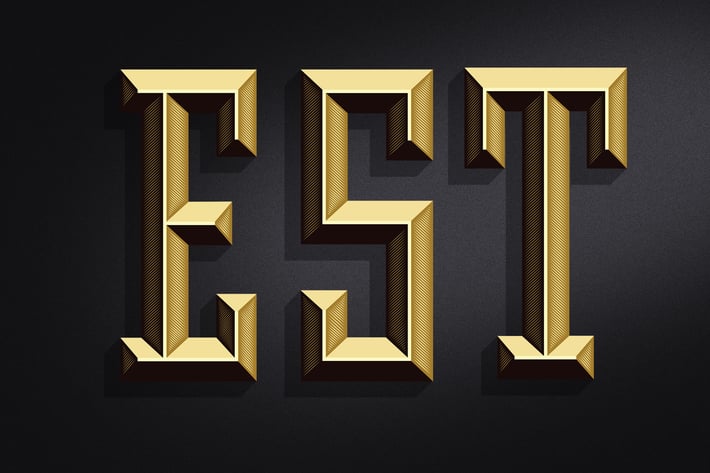
CESARE Typeface
42 elements (26 letters, 10 numbers and 6 special characters) carefully handmade and ready to use in your project in both Adobe Illustrator and Photoshop. Each character is made with vector shape for maximum quality.